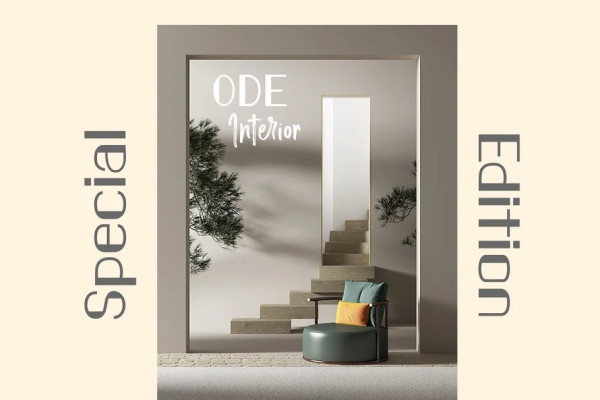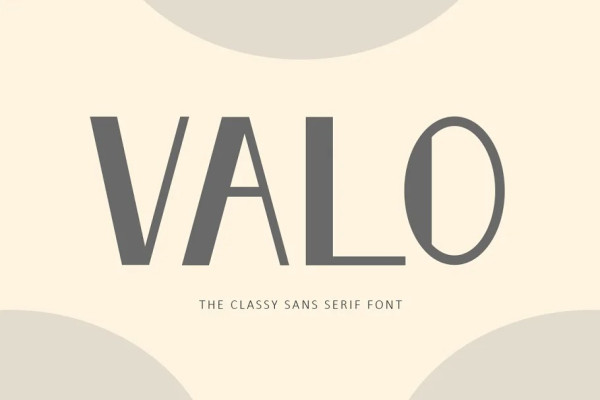
Valo Font
Valo Font is a classy and adaptable sans serif font. Whatever the topic, this font will be a wonderful asset to your font library, as it has the potential to enhance any creation from letterheads and titles, to the best branding.